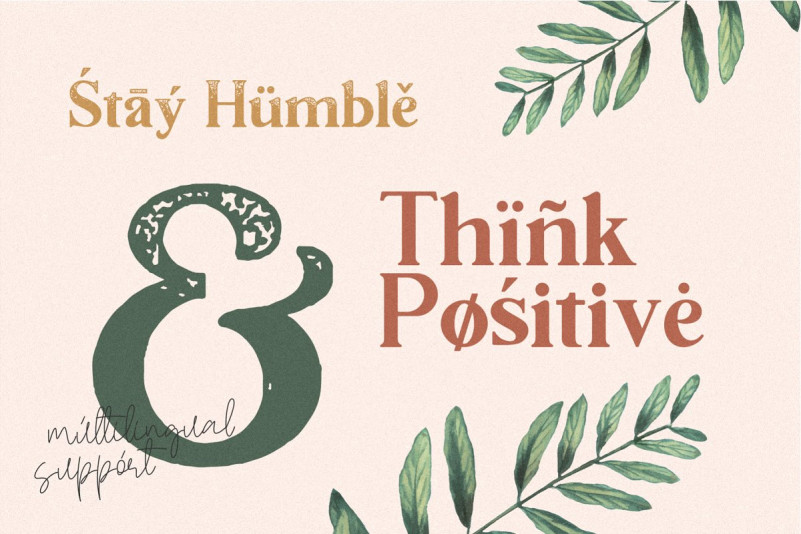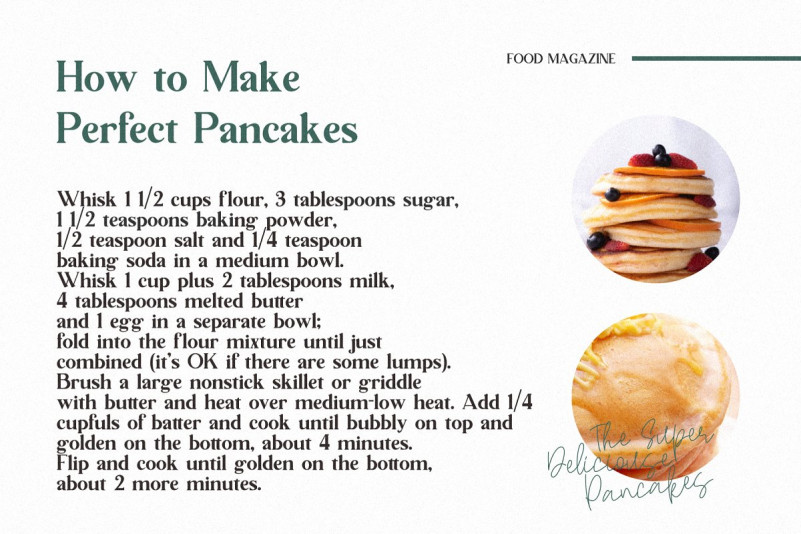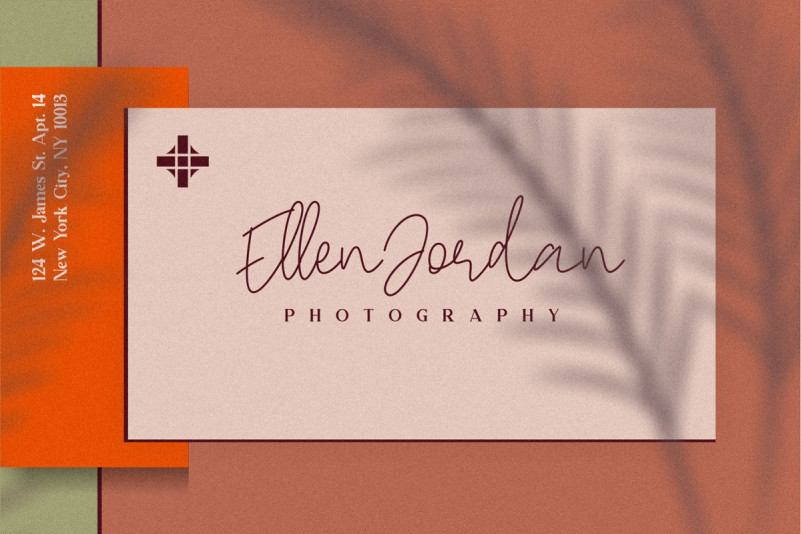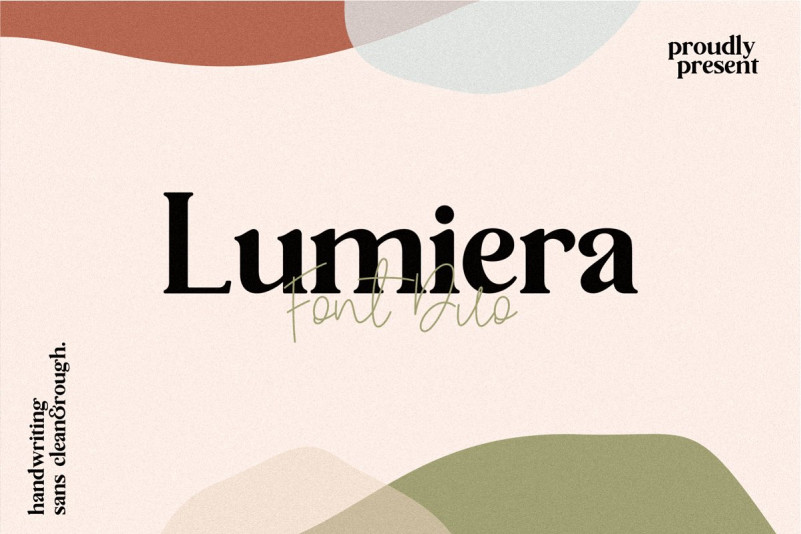
Lumiera Font Duo
Lumiera Font Duo – Free Demo
This is font duo The perfect combination of flowing script and a tall, bold display font. Introducing Lumiera. It’s a sans serif font with characters that will give a modern and luxurious impression to your design products. Lumiera is perfect for design work that is luxurious or classic touch because it is available in several versions such as the sans serif style which is clean, rough, and soft handwritten fonts are available. This font is perfect for magazine cover designs, website titles, master signs, invitations, design labels, logos, business cards, CV, and other design products. Grab it fast this font, for your commercial design before the discount runs out 🙂